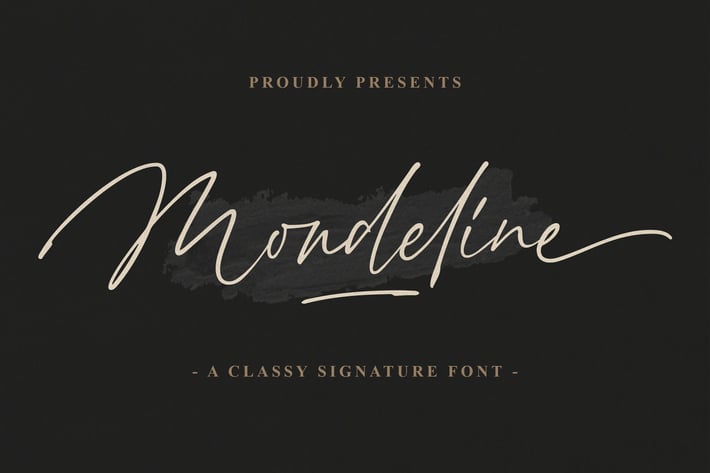
Mondeline a Clean Signature Font
Introducing of our new product the name is Mondeline a clean signature font. Mondeline inspired by signature style this font is a fun theme very good for display, tshirt design, craft, quote sign, logotype and etc